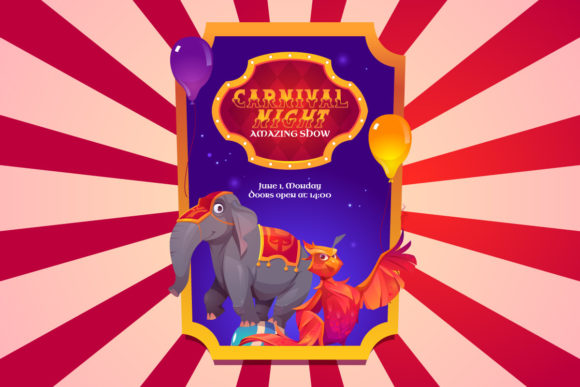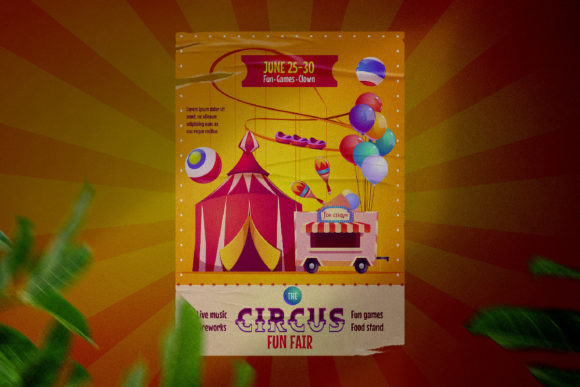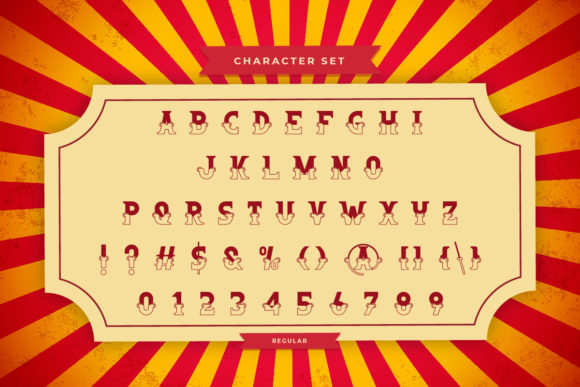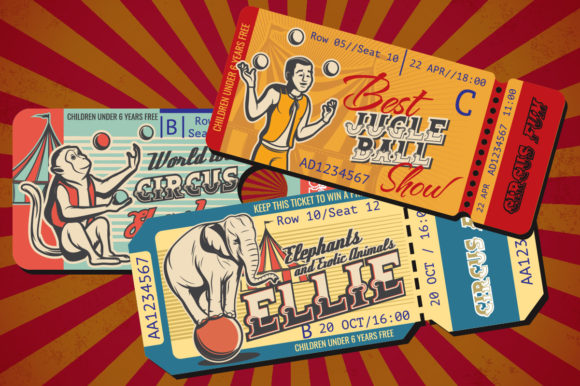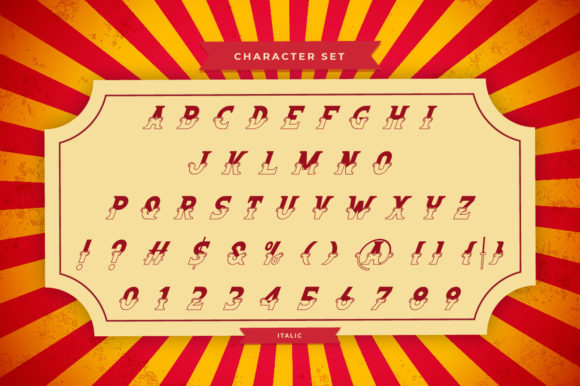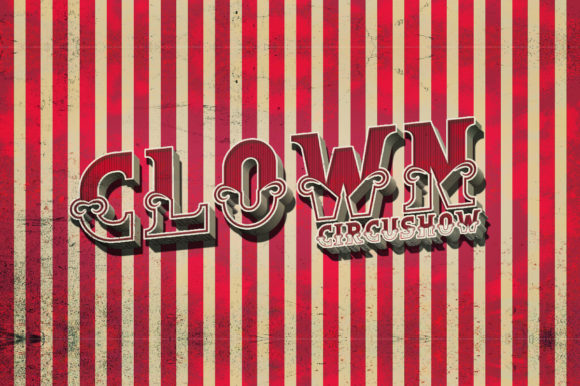
Circus Fun Font – Free Download
Introduction to Circus Fun Font
Circus Fun is a retro, bold and thick lettered display font.
Key Features of Circus Fun Font